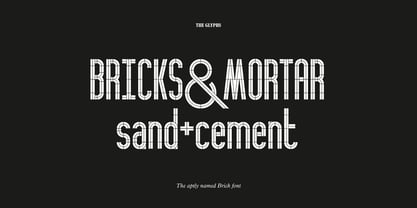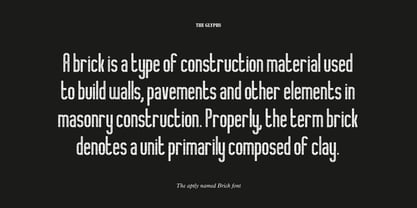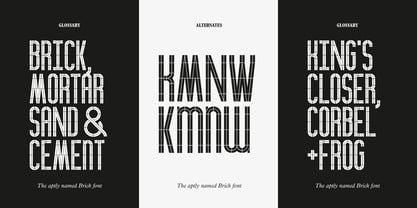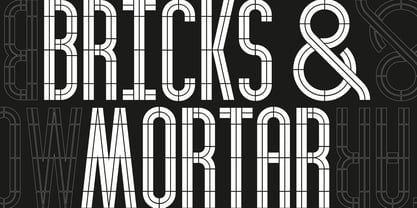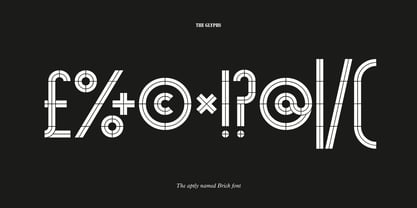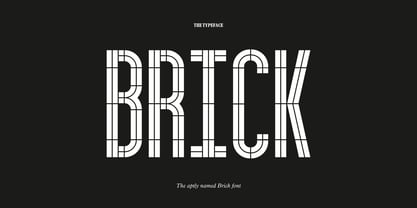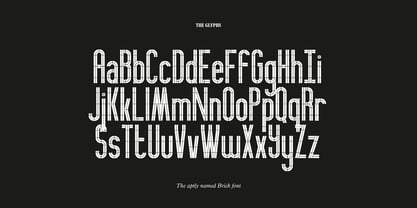
Brick
by Studio Bayley
The Brick Font Family was designed by William Suckling and published by Studio Bayley. Brick contains 1 styles. More about this family
Brick is a bold, geometric stencil typeface inspired by Fregio Mecano; an italian typeface from the 1920's. Built from strong rectangular forms that echo the structure and solidity of traditional masonry. Each letter is shaped from modular block-like elements, with consistent spacing reminiscent of mortar lines, giving the design a sense of precision and order. Its sharp edges and sturdy weight convey strength and permanence, while optional textured variants introduce the rugged charm of weathered brickwork. Whether used for architectural branding, posters, or bold headlines, Brick stands as a statement of craftsmanship, structure, and timeless durability.
Designers: William Suckling
Foundry: Studio Bayley
Studio Bayley is run by William Suckling, a London based brand designer who has worked in a variety of industries from, food and drink to tech and real estate. Each project starts with a mark, and that mark has to be unique, so every mark starts with a typeface. But nothing off the shelf. It has to be unique in a fast paced world. No templates here! The design of custom marks has now expanded into the design of full typefaces. So now each typeface can become a unique mark of its own.